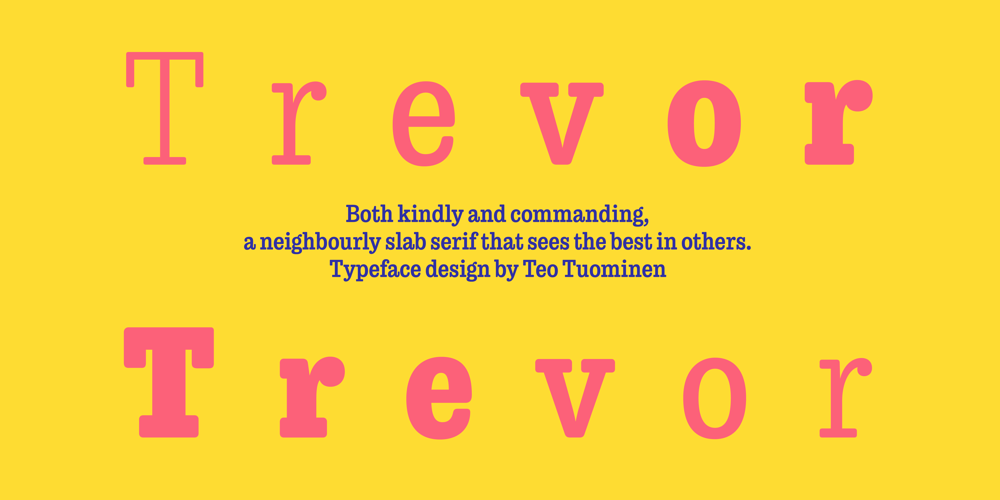
Trevor Font Family was designed by Teo Tuominen and published by TypeTogether. Trevor contains 7 styles and family package options. Teo Tuominen’s Trevor took its first breath as a revival of an 18th century antiqua, but culminated in an entirely new and good-natured family. Trevor is an affable slab serif in nature: both heavy and kind. Known for their familiarity and their dark colour, the terminals of slab serifs put additional weight along the line to maintain an inky presence. Their clunky forms reveal slight immaturity and arouse the reader’s sympathy for the subject at hand. Trevor connects with others by consciously riding the line between being personal and commanding. One goal with Trevor was to pair the robust nature of a low contrast slab serif with more sophisticated elements, such as the ball terminals. So wherever one looks in Trevor, rounded corners rule the day, softening the overall appearance by mimicking ink spread made by old metal type. The easygoing look is tempered by very few inktraps and sharp corners, mostly to the inside of characters and in acute angles. Whatever Trevor is paired with, it has an altruistic outlook in that it sees the best in others. It’s the neighbourly type family — the neighbour you actually want. Trevor’s almost monolinear weight and high x-height give it a typewriter look in the extralight and light weights, but the whole family was made to work with many other font styles, design work, and information structures. It certainly finds its home in packaging and advertising, its sturdy verticality and narrowness fit the needs of headlines and intro text, and its seven weights are primed for plays and involved text needing many layers of distinction. The black weight is treated like a separate display style with altered ball terminals and serifs to capitalise on the added heft. Trevor’s seven roman weights cover the Latin A Extended glyph set to bring its kindly and commanding outlook to your projects. Along with alternate version of the ‘R’ in the black weight, its OpenType features include both tabular and proportional lining and oldstyle figures, ligatures, and fractions. The complete Trevor family, along with our entire catalogue, has been optimised for today’s varied screen uses.